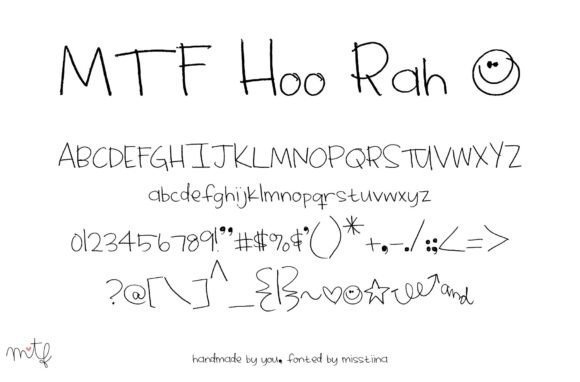
Introduction to Hoo Rah Font
Celebrate life with this relaxed and cheerful handwritten font, Hoo Rah.
It includes thin characters, great legibility, and lots of positive vibes – perfect for complementing your beautiful creations .
Key Features of Hoo Rah Font